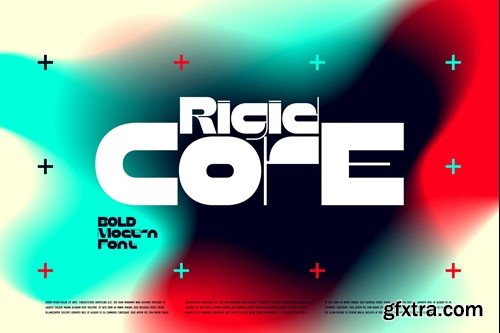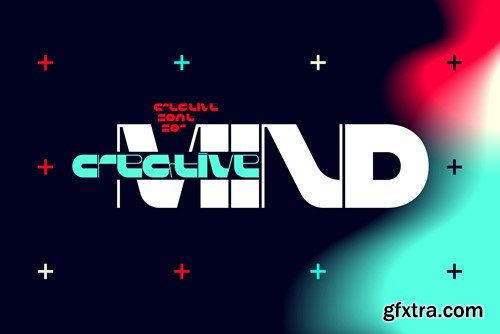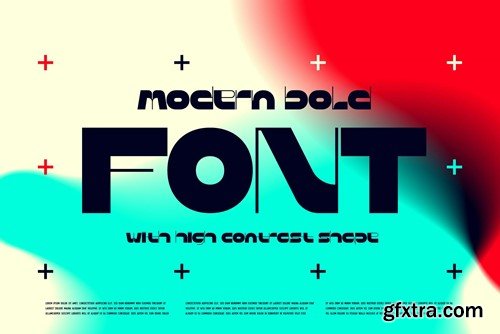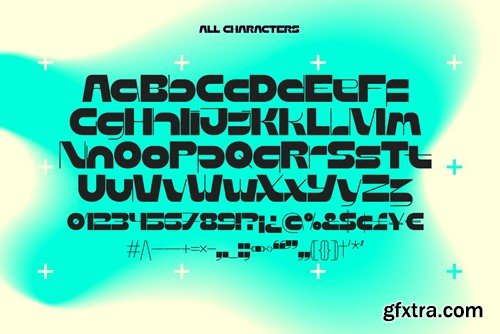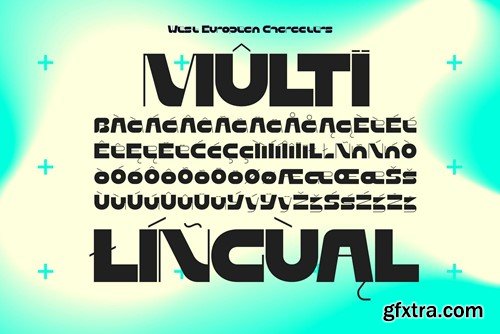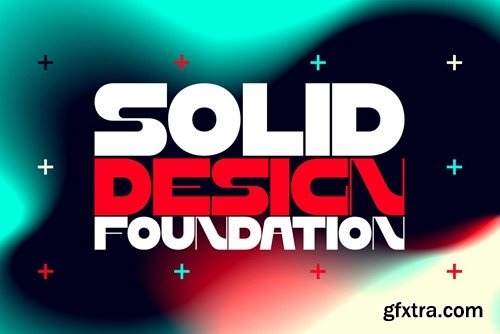
硬质芯板 — 现代字体 QWKF29B
Rigid Core — Modern Font
Hello! Presenting a modern bold font — Rigid Core. It's a geometric typeface with massive shape and high contrast elements. Rigid Core font has multilingual support (check out a screenshot with available letters and signs). This package includes OTF, TTF and WOFF font files, that should cover most of your needs. Thank you and wish you a peaceful sky!